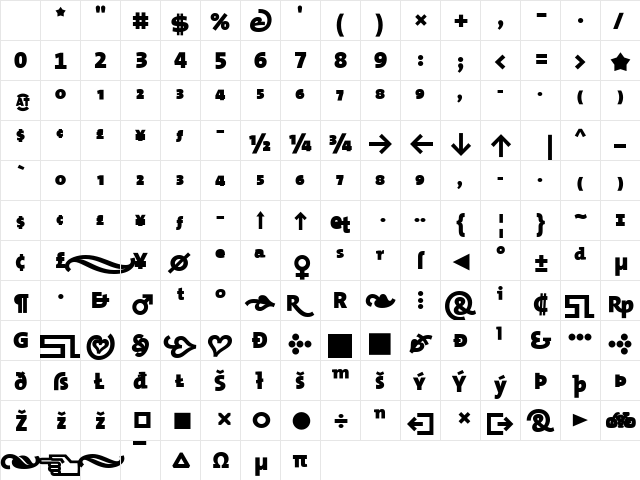
Complete TheMixBlack Roman glyph index. Displaying only characters natively supported by TheMixBlack Roman font.
TheMixBlack is a composed and adaptable typeface that performs quietly and consistently across a wide range of design contexts.